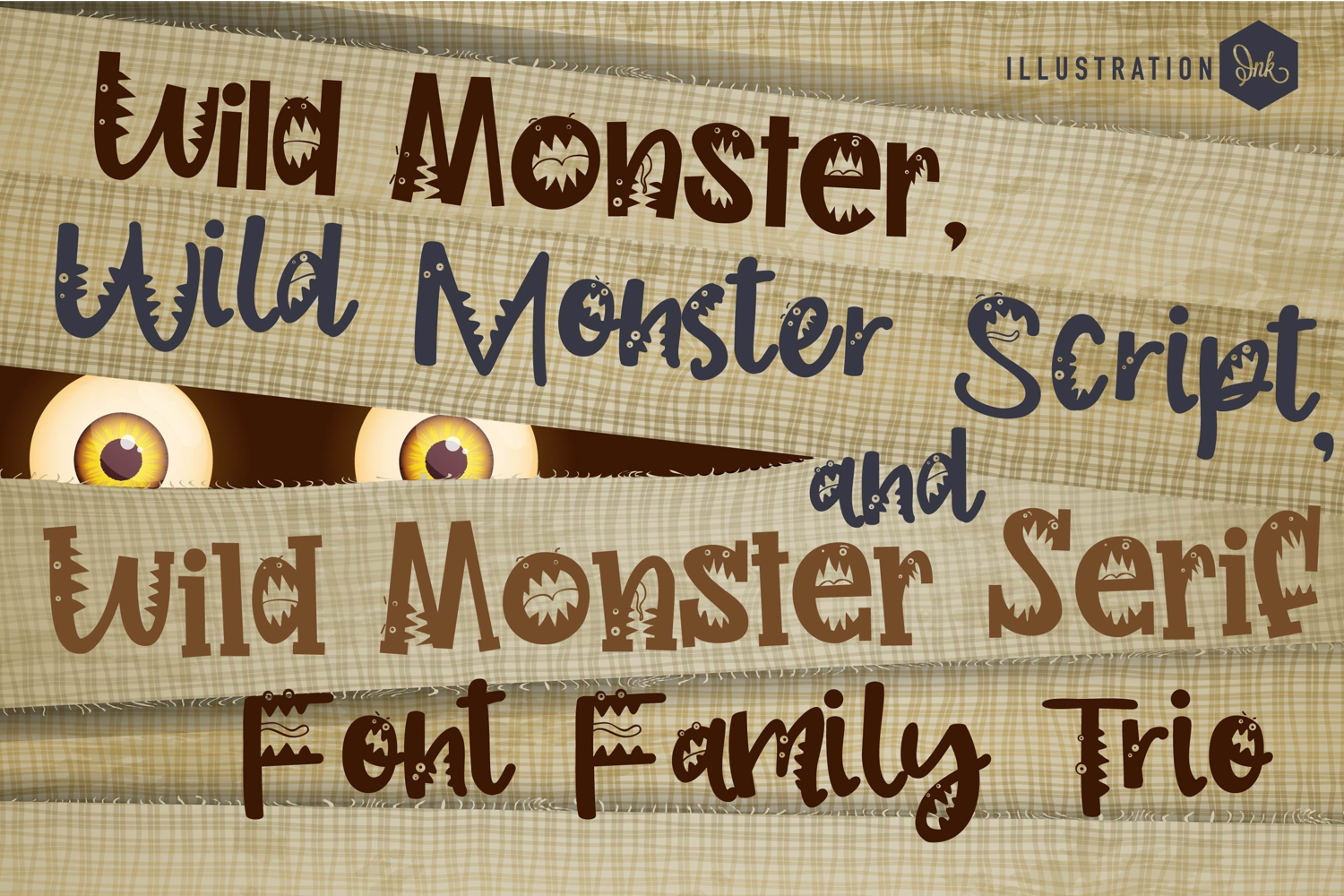
Wild Monster Font Trio
This hand-crafted font trio combines a hand-printed font sporting monster mouths as well as a perfectly coordinated script and serif version. With all family members combined of the 3 fonts, you get 9 fonts all together!
Hand-crafted fonts can be either formal or informal, and they can be used for a variety of purposes. Some of the characteristics of handwritten fonts include: The letters are not perfectly uniform in size or shape. There may be slight variations in the spacing between letters and words. The font may have a "wiggly" or "squiggly" appearance. The font may be difficult to read at small sizes. Handwritten fonts can be a great way to add a casual touch to your designs. They can also be used to create a sense of nostalgia or whimsy. However, it is important to choose a handwritten font that is appropriate for the project you are working on. A formal handwritten font may not be appropriate for a casual invitation, while an informal handwritten font may not be appropriate for a corporate document.
• The letters are not perfectly uniform in size or shape.
• There may be slight variations in the spacing between letters and words.
• The font may have a "wiggly" or "squiggly" appearance.
• The font may be difficult to read at small sizes.